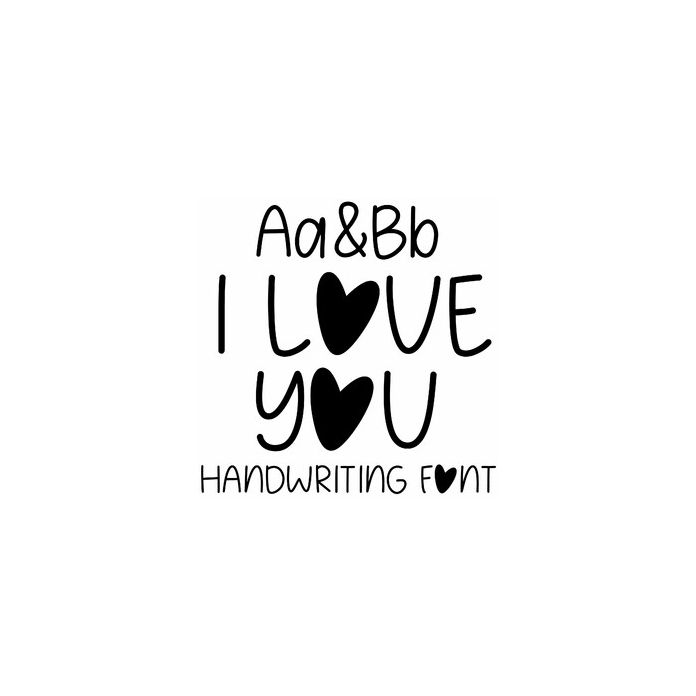
Cute font with hearts for Valentine's Day, birthdays, gifts, monograms, planners, and personalization projects. Includes alphabet, numbers, and punctuation.